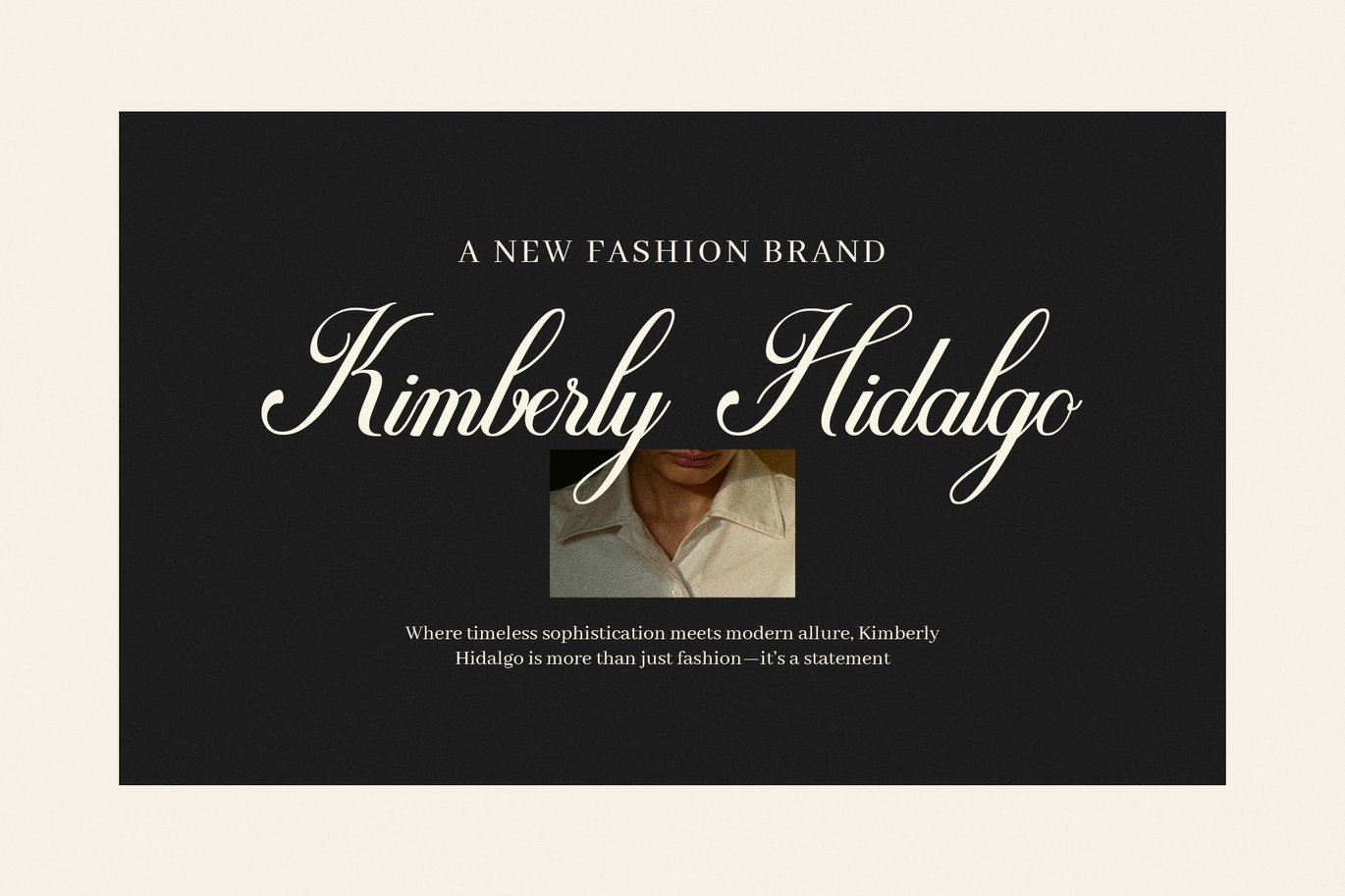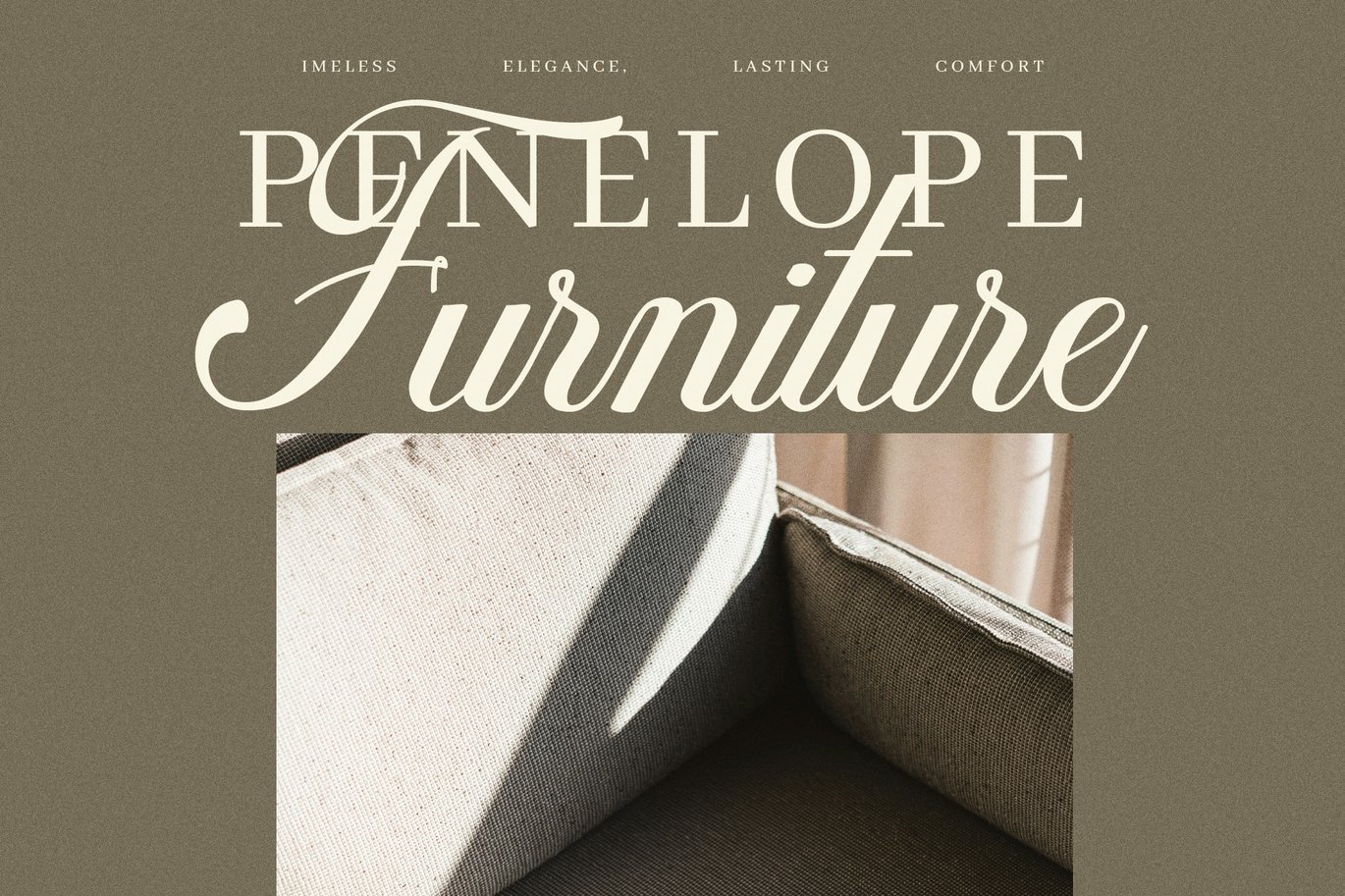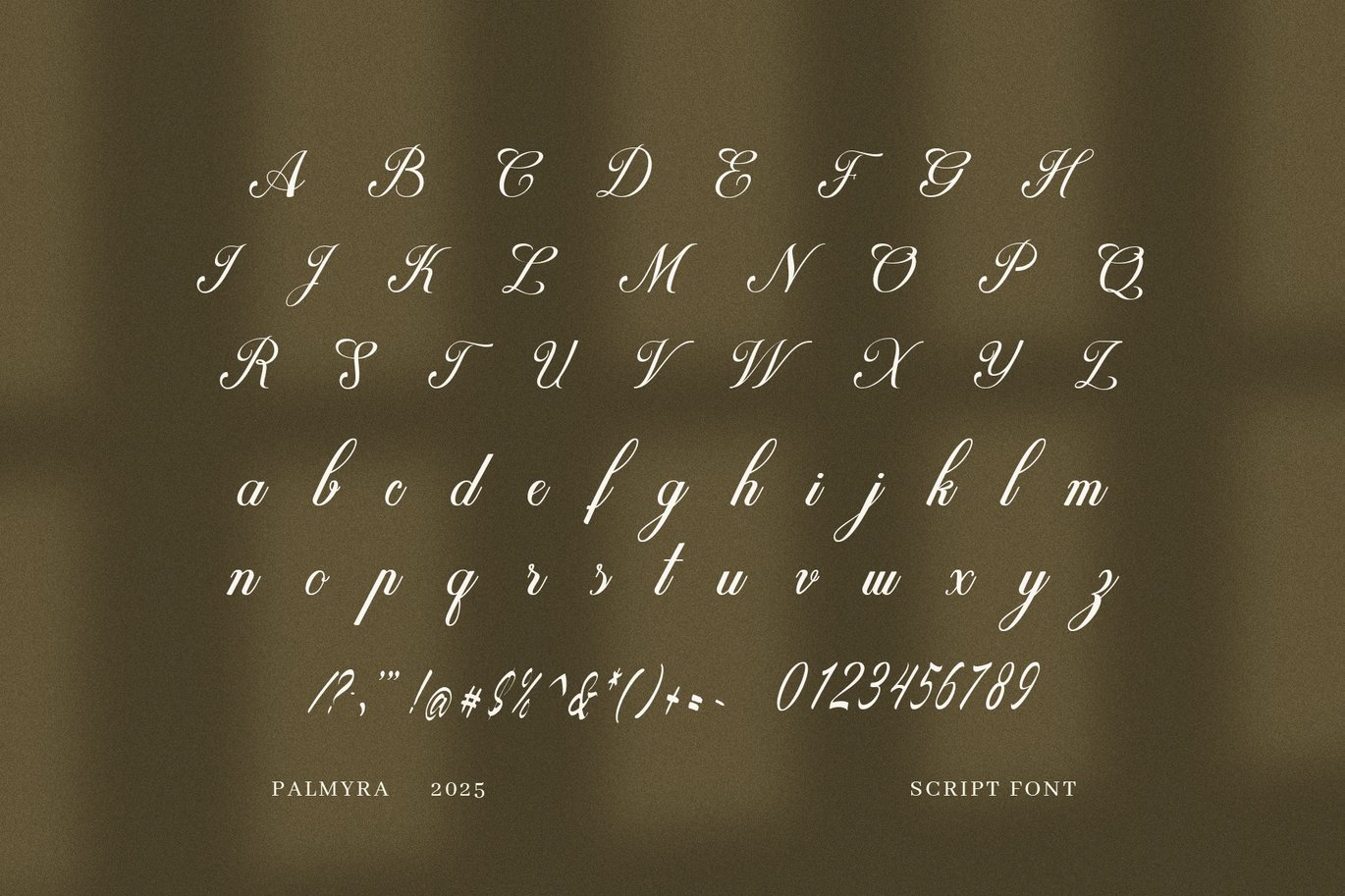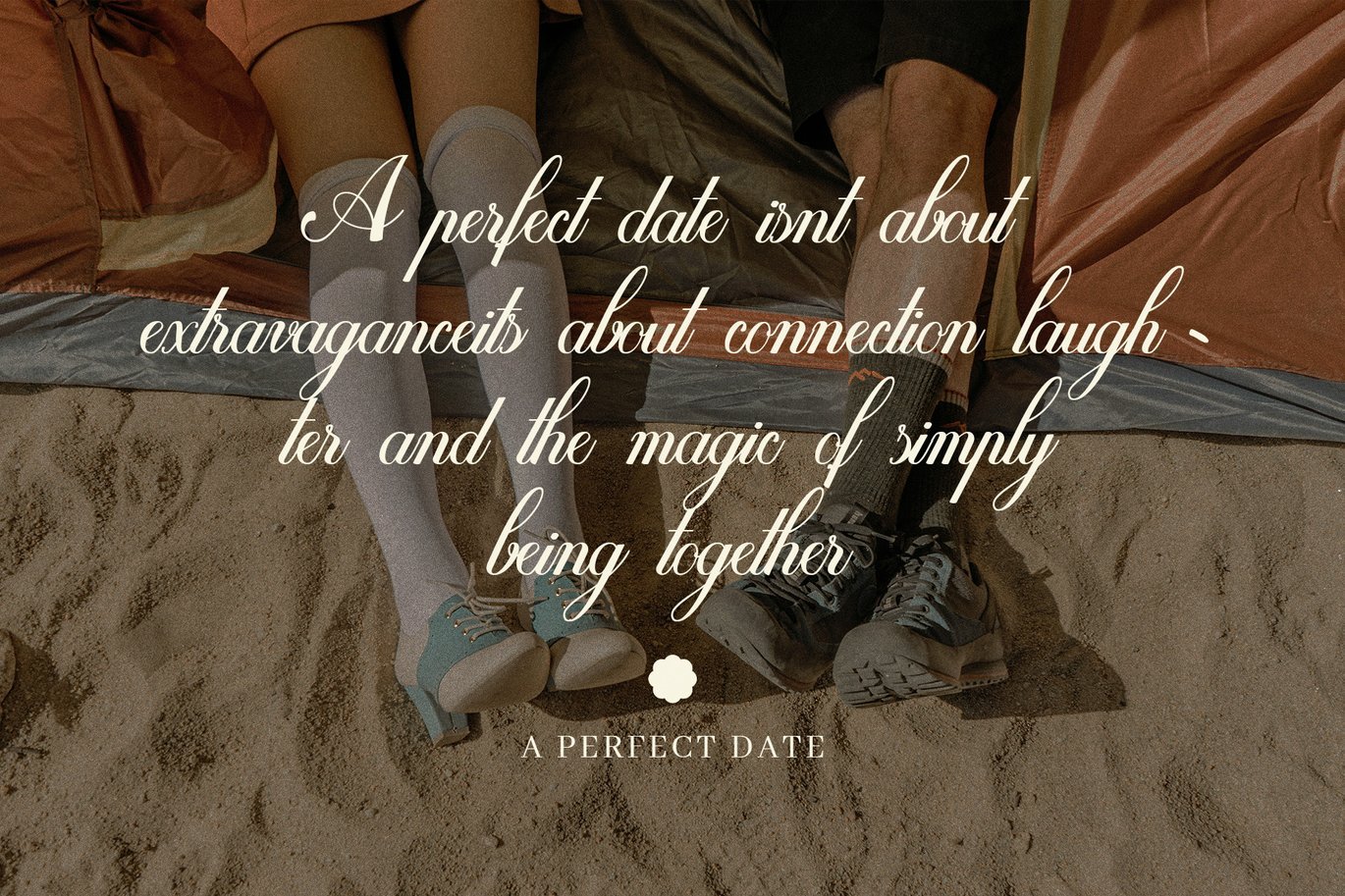
Palmyra Elegant Script Font
Palmyra is a beautifully crafted handwritten script font that adds a natural and elegant touch to any design. Its flowing, smooth strokes create a warm and personal feel, making it perfect for invitations, branding, logos, and social media graphics. Whether you want to highlight your creativity or add charm to your project, Palmyra offers style and sophistication in every letter.
Key features include:
Stylish, easy-to-read handwritten script design
Smooth connections between letters for natural flow
Versatile for branding, packaging, invitations, and more
Supports multilingual characters to reach a global audience
Ideal for wedding designs, greeting cards, and editorial layouts
Palmyra’s unique style combines classic script elegance with a modern twist. This font balances softness and clarity, making it easy to read while maintaining a handcrafted look. Moreover, it works well across different sizes and platforms, so your designs remain beautiful whether on print or digital screens.
In addition, Palmyra pairs wonderfully with sans serif fonts, allowing you to create eye-catching layouts that highlight important text. Its smooth curves and natural flow bring warmth and personality to your work. As a result, it’s a favorite among designers who want to add a touch of handmade charm without sacrificing professionalism.
Furthermore, this font simplifies the creative process because it adapts easily to various themes and styles. It suits both formal and casual projects, offering flexibility for designers working on personal or commercial assignments.
In short, Palmyra is a stylish script font that enhances your creative projects with elegance and personality. Try Palmyra today to give your designs a graceful and inviting appearance that stands out.